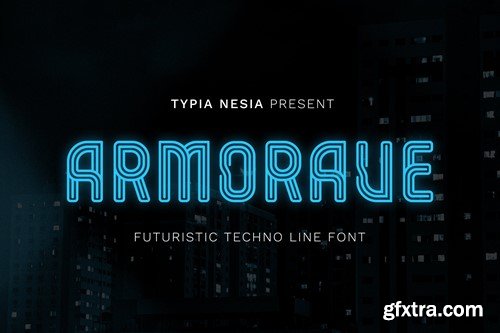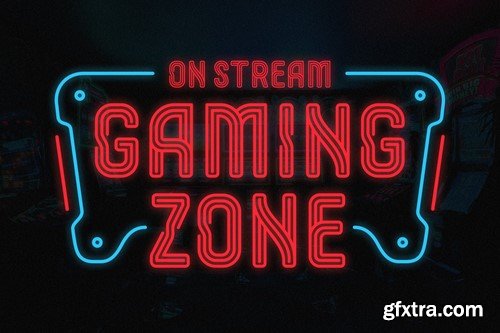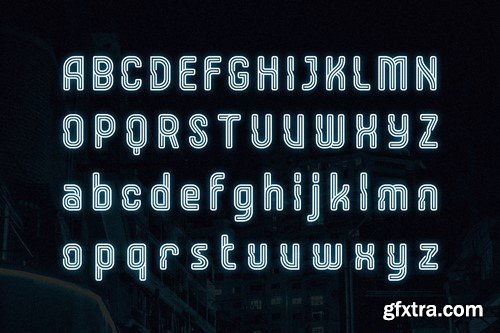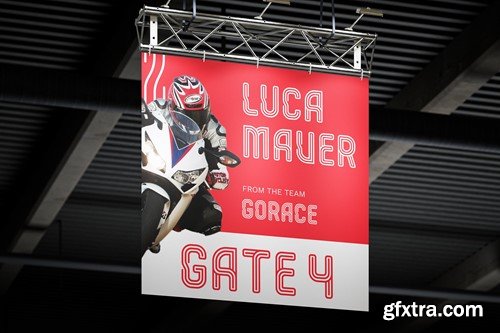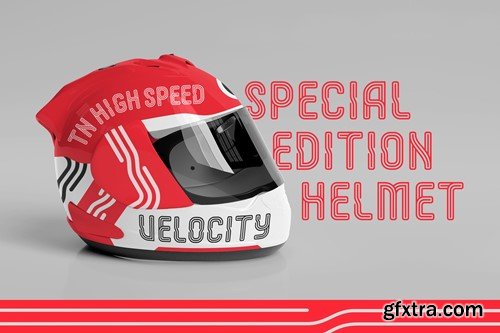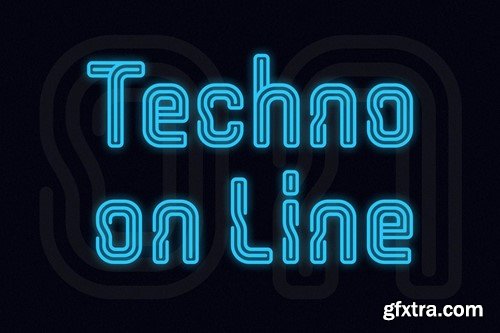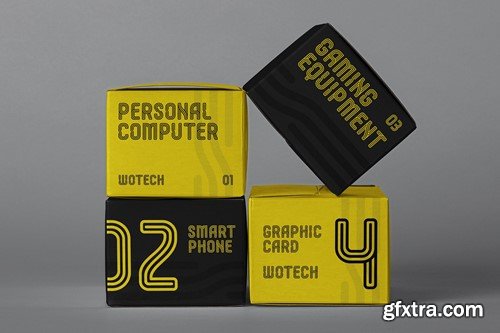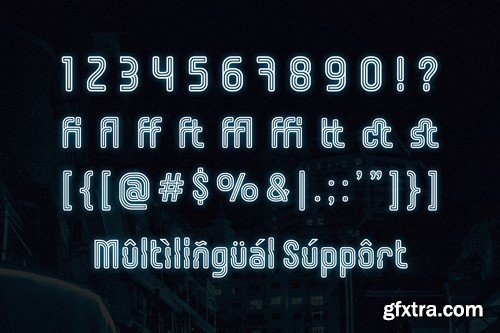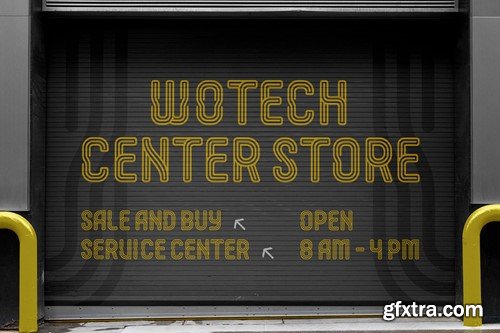
Armorave - 拯救未来科技线条字体 F55JXU8
Armorave - Futuristic Techno Line font - Modern and Cutting-edge Design - Line Display Font. Armorave is a cutting-edge Futuristic Techno Line font that embraces advanced, modern design principles, making it an ideal choice for projects seeking a futuristic and tech-inspired aesthetic. Tailored for contemporary designs, Armorave adds a dynamic and forward-looking touch to technology-related projects branding, app and software interfaces, product packaging, use the font on product packaging for tech gadgets, electronics, or other futuristic products to create a contemporary and high-tech look. You can also apply the font for digital and print advertisements, social media graphics, motion graphics and videos for videos related to technology or other futuristic topics, Web Design, Gaming Graphics and any application where a futuristic vibe is desired. Boasting a unique ligature style, Armorave seamlessly connects characters for a fluid and futuristic appearance. The font includes Uppercase and Lowercase letters, Punctuation marks, Numerals, and extensive Multilanguage Support, ensuring adaptability and versatility for a wide range of cutting-edge applications. What’s Included: Step into the future of design. Download Armorave now and redefine the visual landscape with futuristic sophistication! Thank You. Typia Nesia Std.